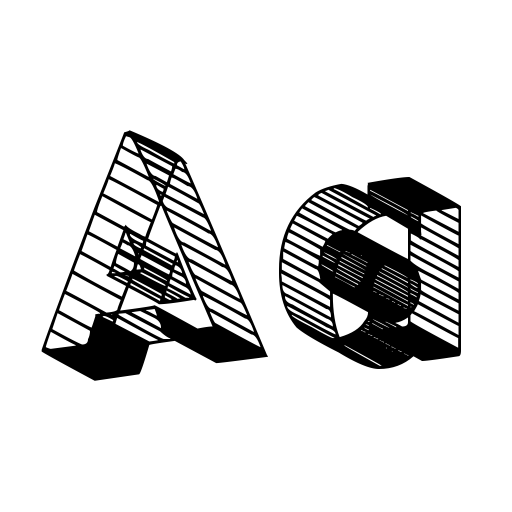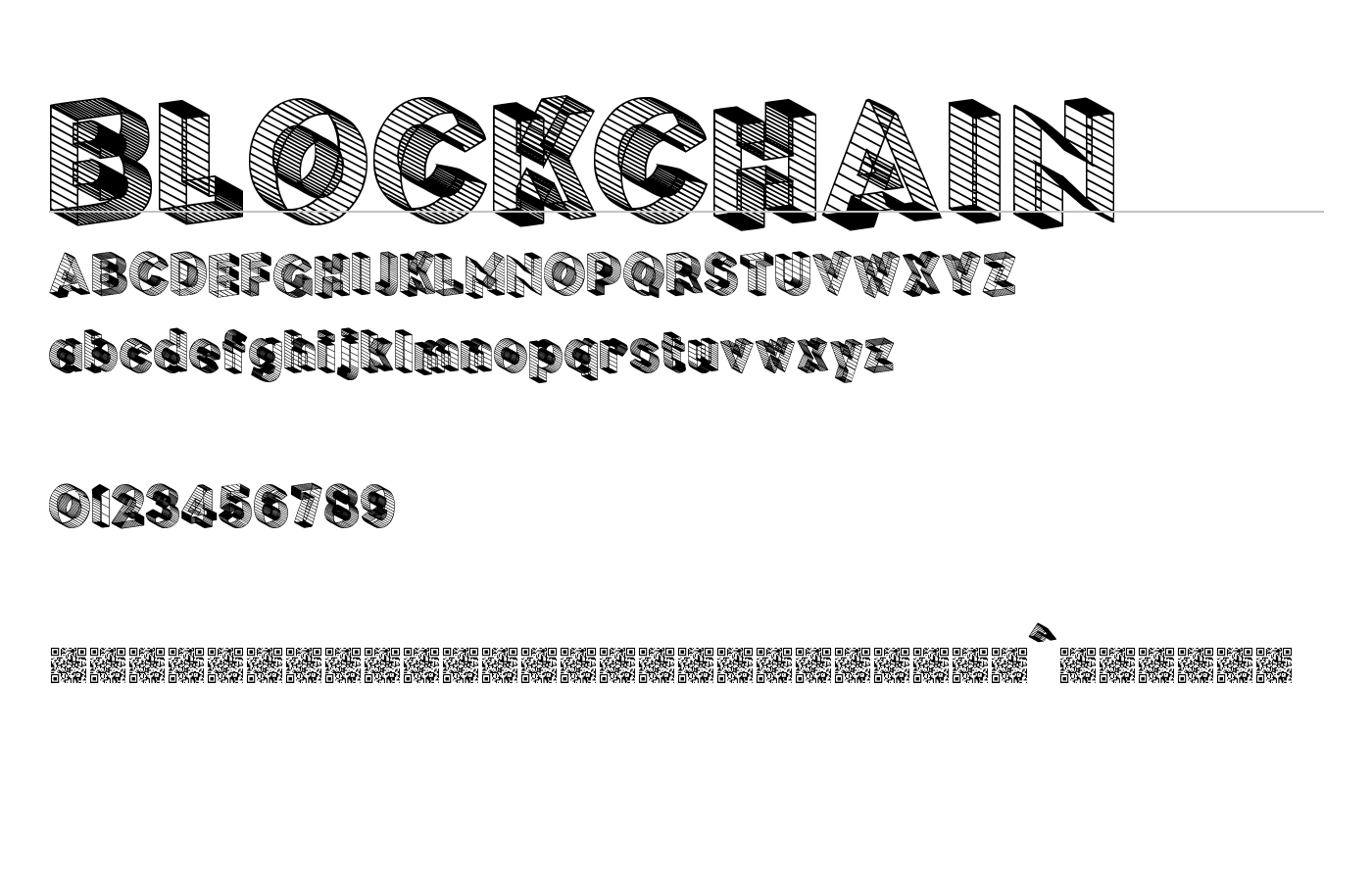
BLOCKCHAIN is a bold, geometric sans serif font showcasing a three-dimensional, blocky design with striped shading that adds depth and a futuristic tech vibe. It feels modern and dynamic, making it ideal for eye-catching headlines, logos, and branding in technology, crypto, or digital-focused industries where a strong, innovative impression is desired. Its playful yet structured style works well for creative projects aiming to stand out with a contemporary, confident personality.
BLOCKCHAIN Font
About BLOCKCHAIN Font